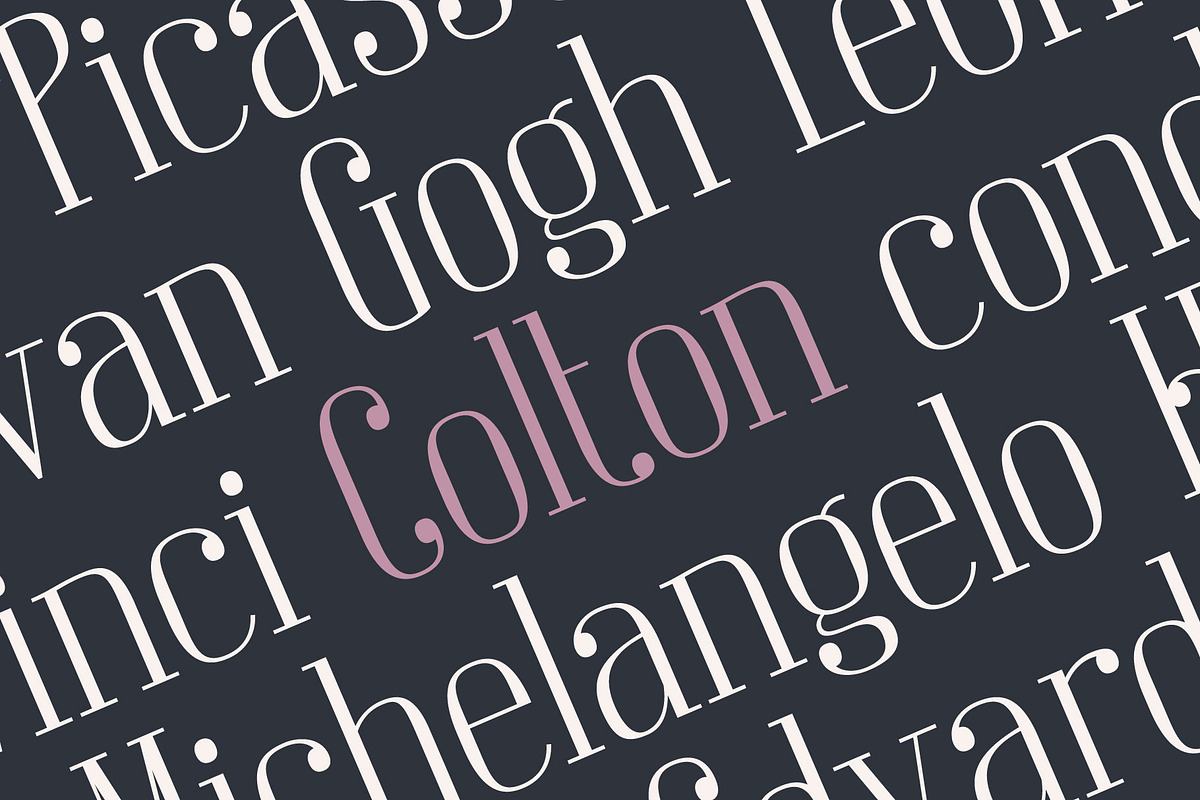
Colton Condensed Serif Font Free Download is a sleek, modern typeface that combines the classic elegance of serifs with a compact, condensed design. Perfect for projects that need to make a bold statement with limited space, this font is ideal for headlines, logos, posters, and packaging designs. The condensed form of Colton ensures maximum readability while maintaining a sophisticated and professional appearance. Whether you're designing for a fashion brand, a tech startup, or any other modern business, Colton Condensed Serif Font Free Download lets you test the font's sharp, stylish design in personal projects before committing to a commercial license. Bring elegance and impact to your designs with this versatile and eye-catching font.